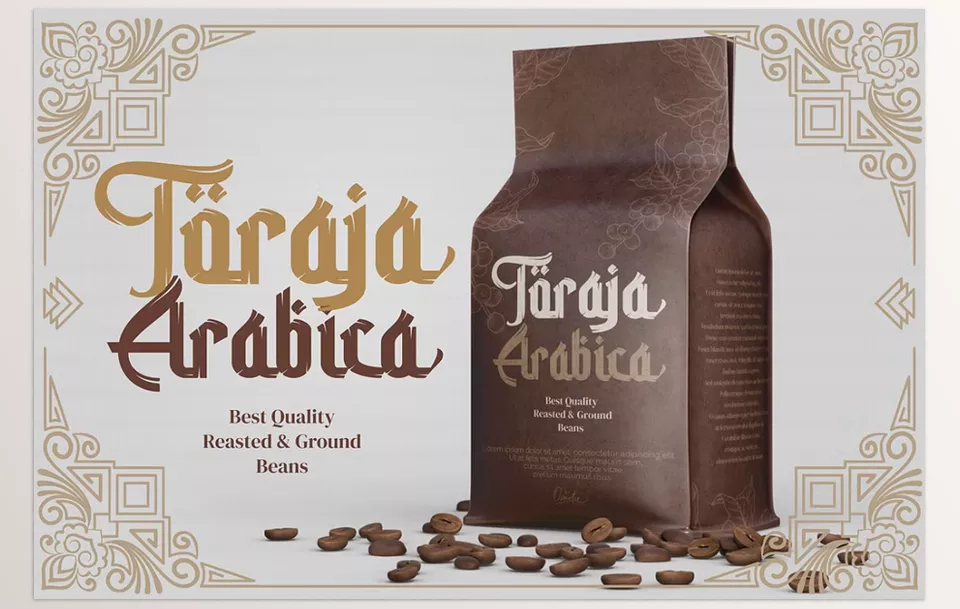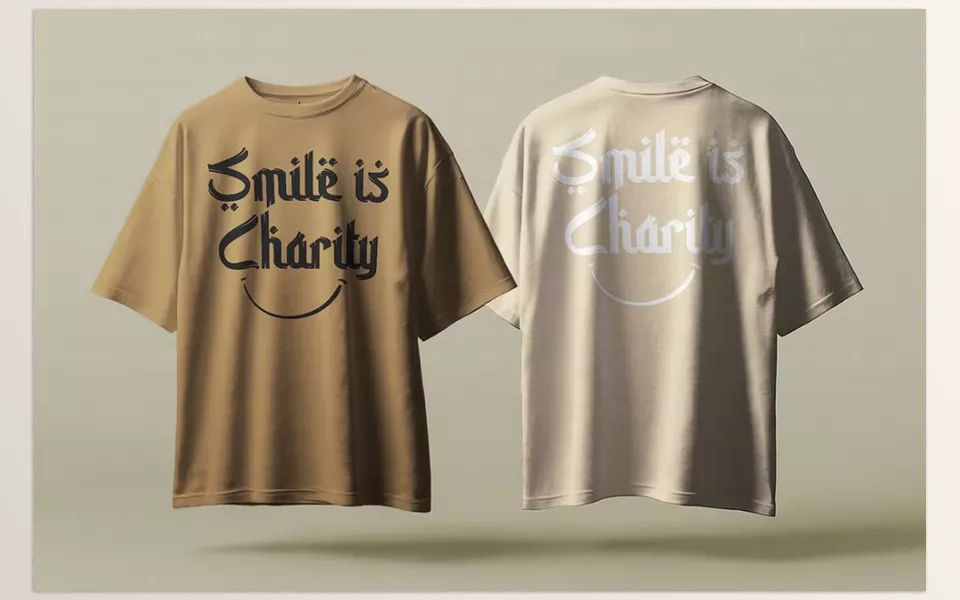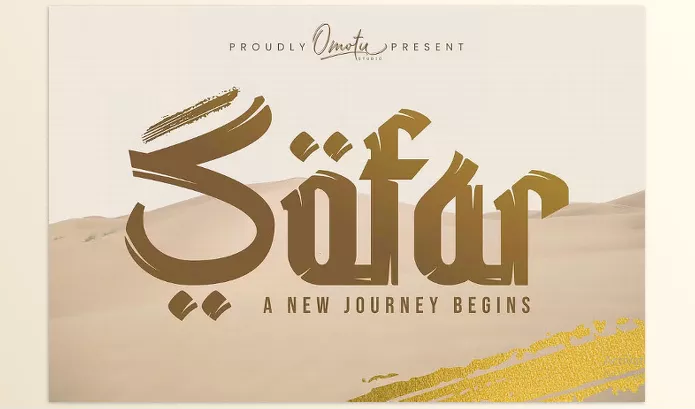
Sofar Font is a modern typeface with deep Arabic calligraphy roots that would work well in any Islamic design project. It is very versatile and therefore very appropriate for branding, logos, headlines, apparel, and much more.
- Advanced Features: OpenType Provides an extensive range of typographical features for greater design flexibility.
- Multilingual support: Sophisticated fonts can now use a greater number of languages which helps the design reach more people.
- PUA encoded: Sofar gives users access to its features even in absence of Open Type through the use of PUA encoding, ensuring users access to all characters for any application with limited formatting options.
- Comprehensive character set: The font has number, punctuation, lowercase and uppercase characters along with many stylized variations which are collectively referred to as the design set.
Preview Sofar Font
Image 1: With this typeface, your designs will have the elegance of sophistication.
Image 2: For any type of work branding is needed along with versatility, which is why this typeface is perfect for almost every project.